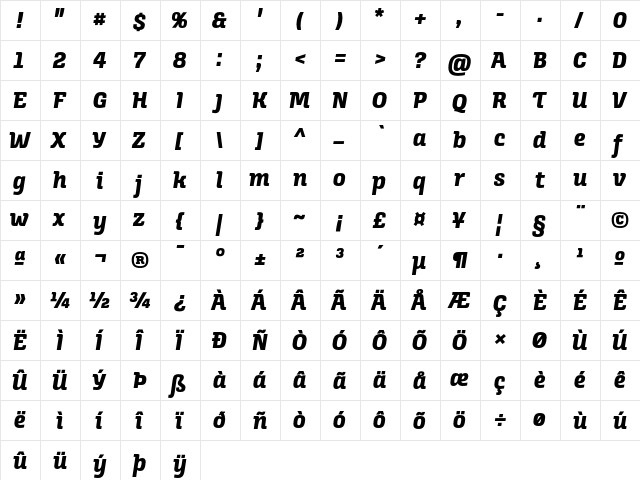
Alianza Italic 800 Font Preview
Alianza Italic 800
| Foundry | Manuel Corradine - Sergio Ramirez |
| Designer | Manuel Corradine - Sergio Ramirez |
Design Context for Alianza Italic Typeface
Alianza Italic offers clean, dependable letterforms without strong stylistic allegiance, making it a practical choice for designers who need flexibility. Its italic angle brings a sense of urgency and motion to the letterforms.
Pro Tip: Use Alianza Italic for emphasis, pull quotes, and subheadings where its slanted energy can add rhythm to the layout.